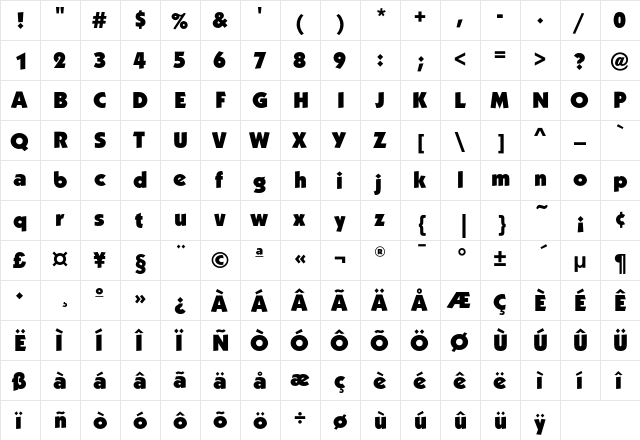
KabelEF-Ultra Regular Font Preview
KabelEF-Ultra Regular
KabelEF-Ultra Regular Font Details
Design Context for KabelEF-Ultra Typeface
KabelEF-Ultra takes a measured approach to typography — its balanced proportions and neutral character make it a reliable workhorse for both digital and print work.